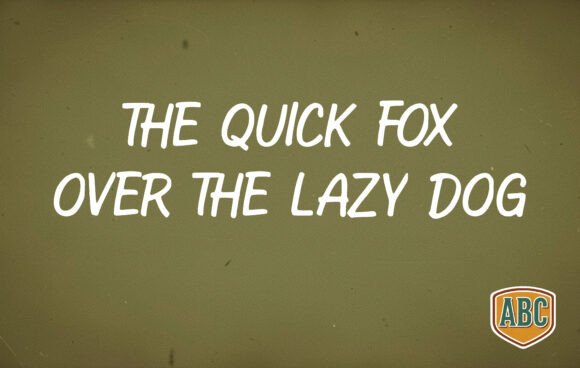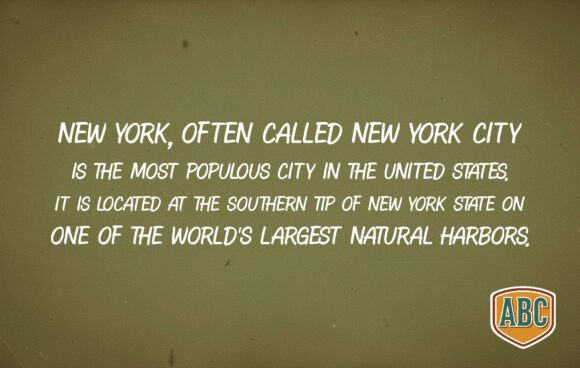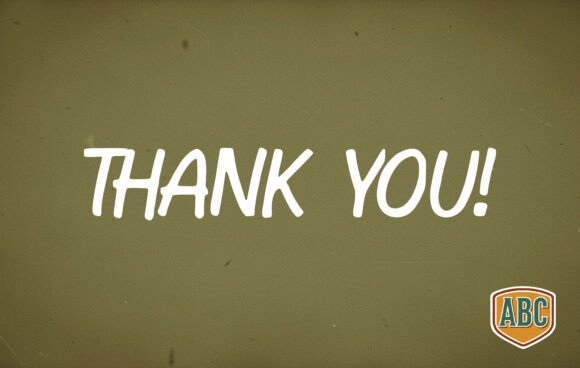
Introduction to Olive Drab Font Font
Fonts play a crucial role in design, and the Olive Drab Font font is a typeface that brings both character and versatility to any project. Whether you’re working on a branding project, a website, or a print design, the Olive Drab Font font offers a unique style that can elevate your work.
Rugged, versatile, and full of character, the Olive Drab font offers a modern take on the hand-inked aesthetic.
This typeface features a casual, marker-style weight that feels both utilitarian and creative The Olive Drab typeface is exceptionally well-suited for outdoor adventure branding, military-inspired apparel, or edgy editorial layouts.
Key Features of Olive Drab Font Font
Why Choose Olive Drab Font Font?
The Olive Drab Font font is more than just a typeface – it’s a design tool that helps you communicate your message with style and clarity. Its unique character set and versatile design make it suitable for a wide range of applications, from elegant invitations to bold headlines.
With its carefully crafted letterforms and balanced proportions, the Olive Drab Font font ensures readability and visual appeal across all mediums.
What makes Olive Drab Font font special?
The Olive Drab Font font stands out with its unique design, exceptional readability, and versatility across various design applications.